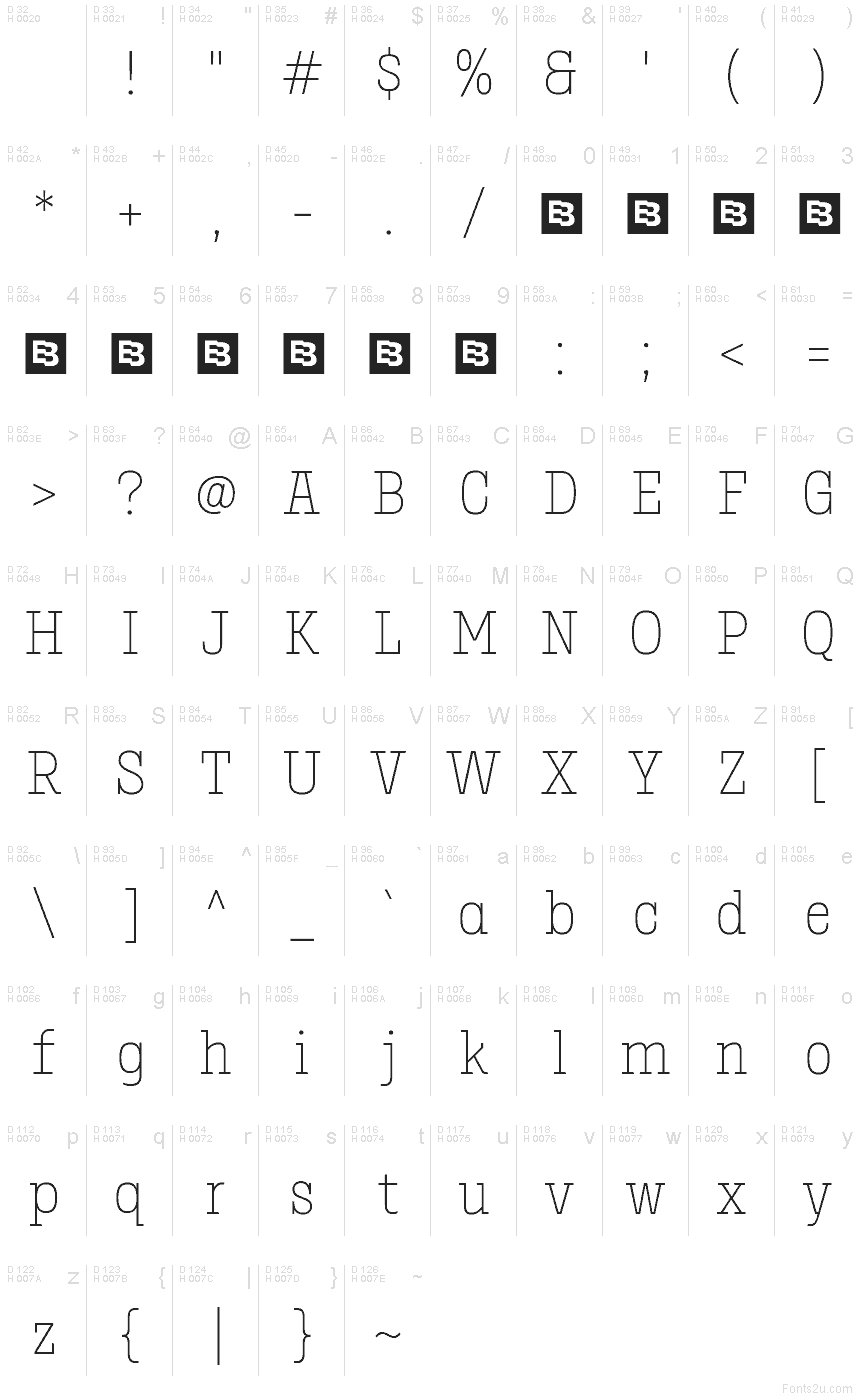
Birdwood Trial Thin
Birdwood Thin font by Eko Bimantara is a refined free serif font with delicate, elegant lines. Its classic aesthetic reflects historical influences, offering a perfect blend of tradition and modernity. The light font weight gives it a gentle presence on the page while maintaining legibility.
The thin font style works for invitations, diplomas, letters, presentations, resumes, business cards, ID cards, online publications and in print too. Use it on books as titles or within text paragraphs; the choice that will always benefit users by letting the actual textual message be communicated effectively.